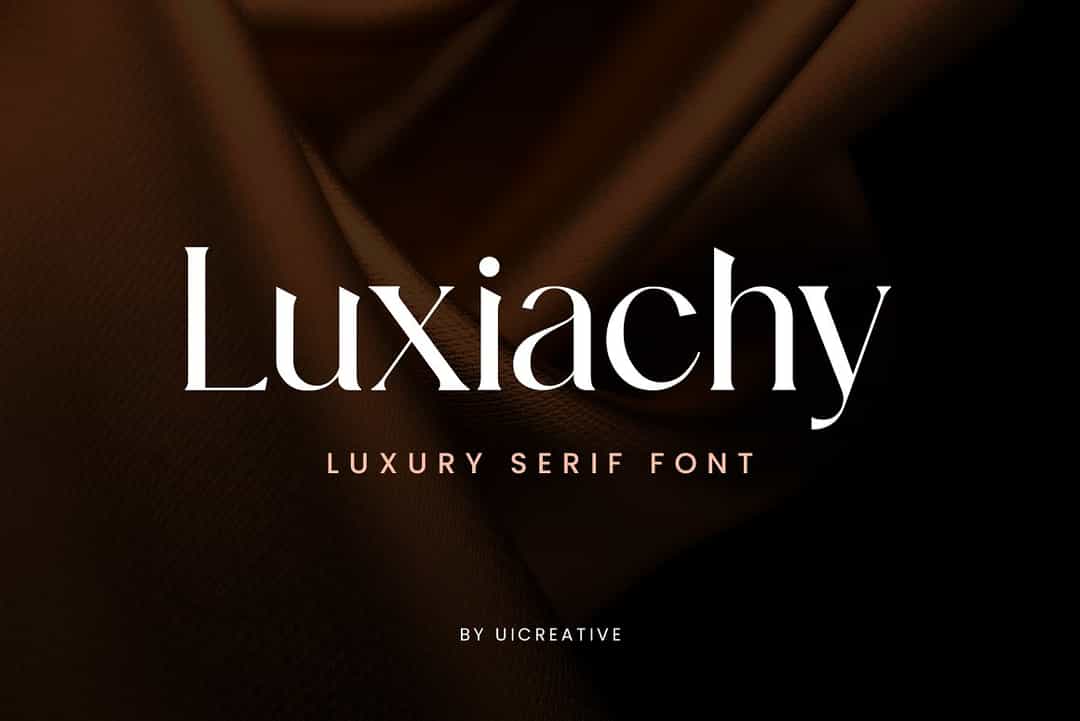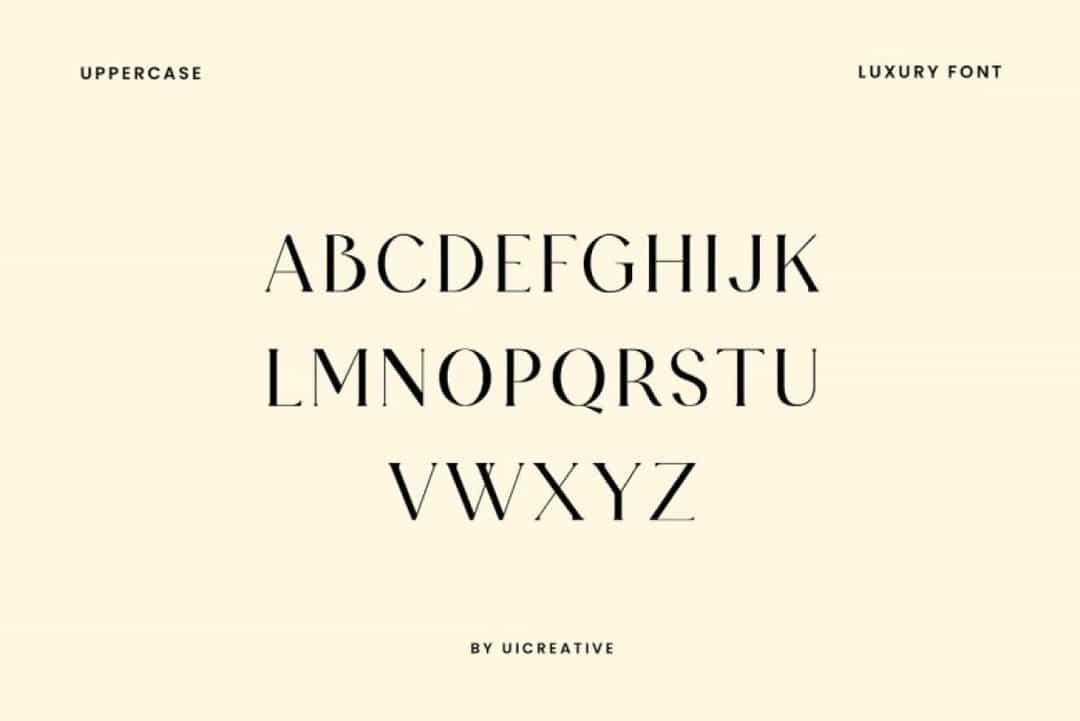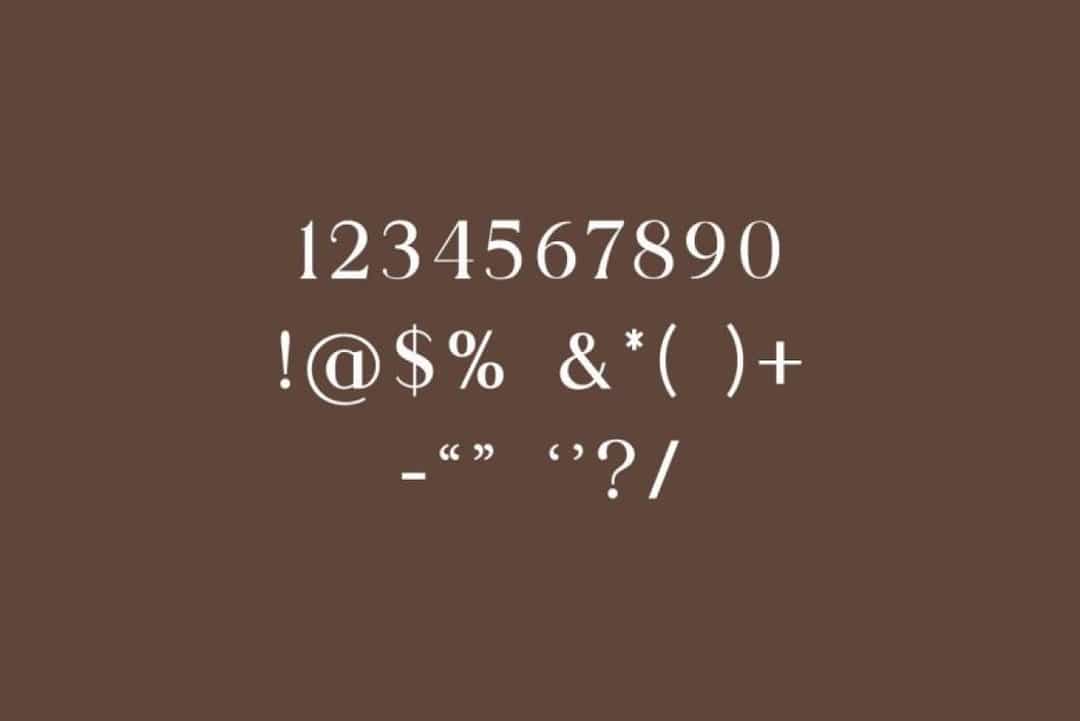
Luxiachyis an exquisite serif typeface that exudes luxury, sophistication, modernism and elegance. It is suitable for many designs including logos, signatures, wedding stationery designs, typography quote book or magazine covers as well as headers for websites branding clothing packaging design among many more applications.